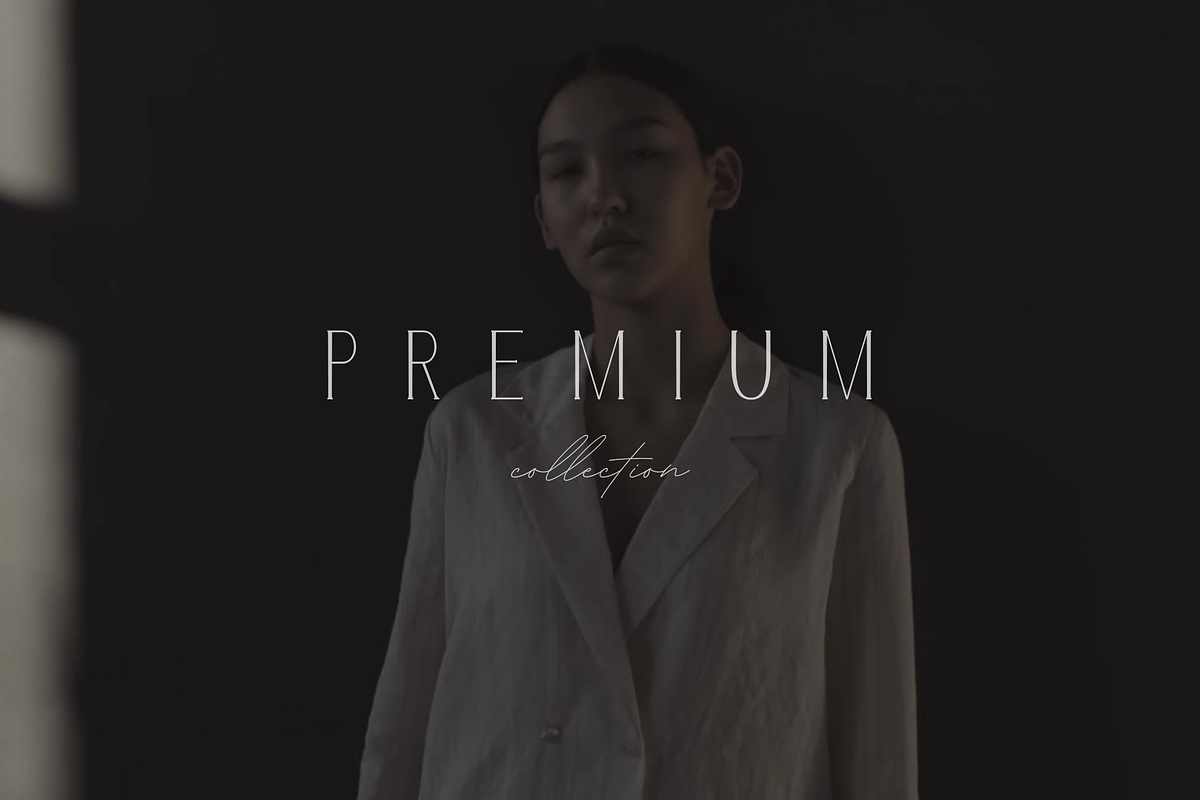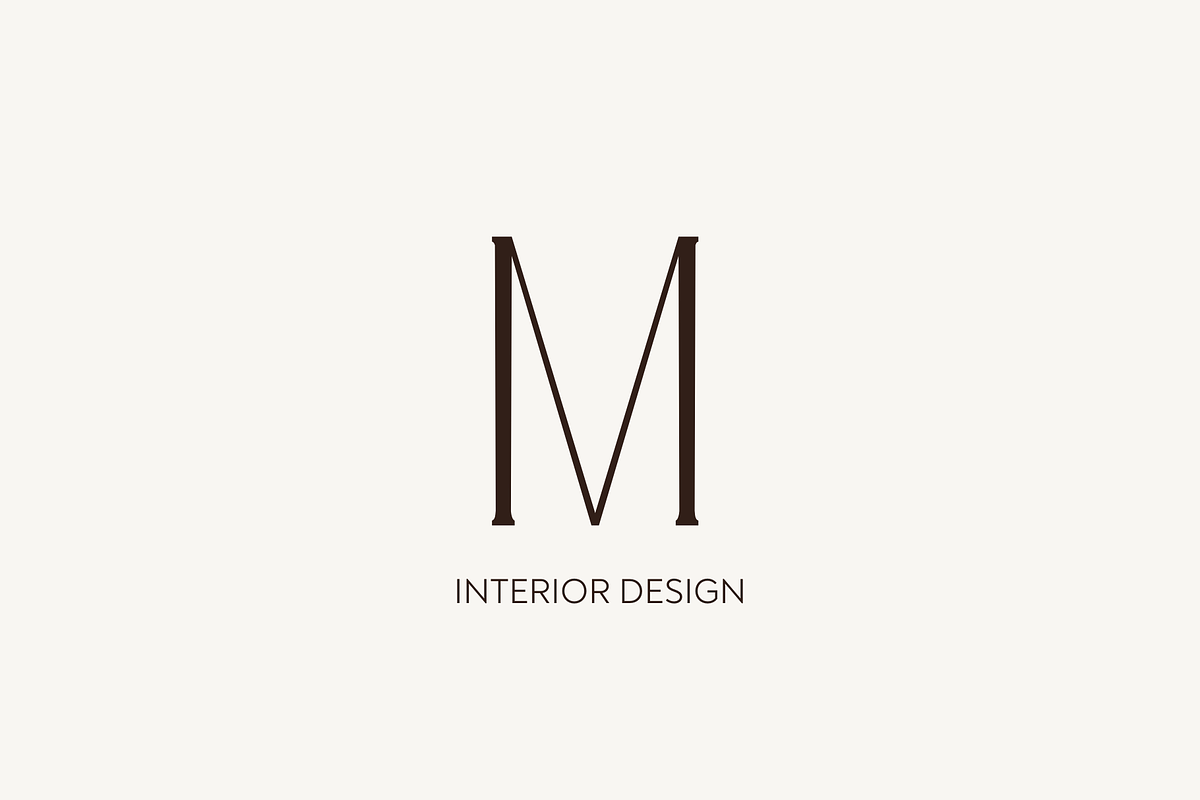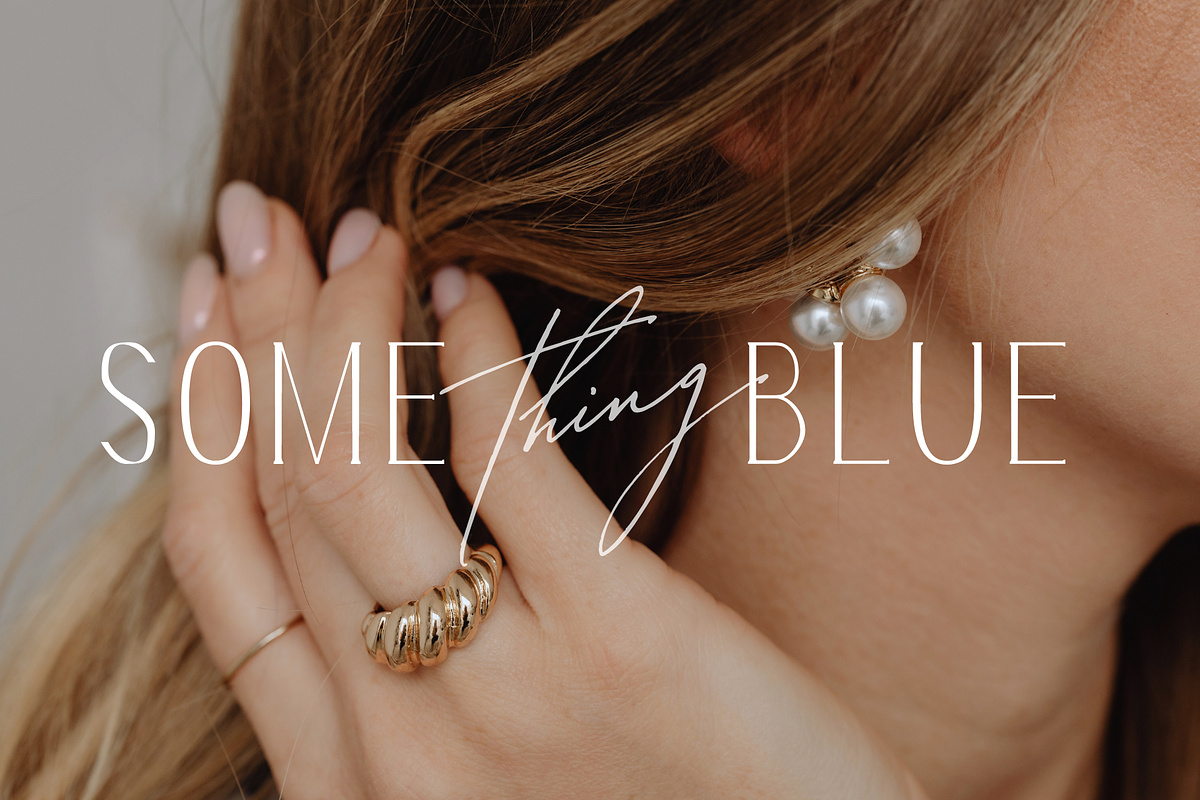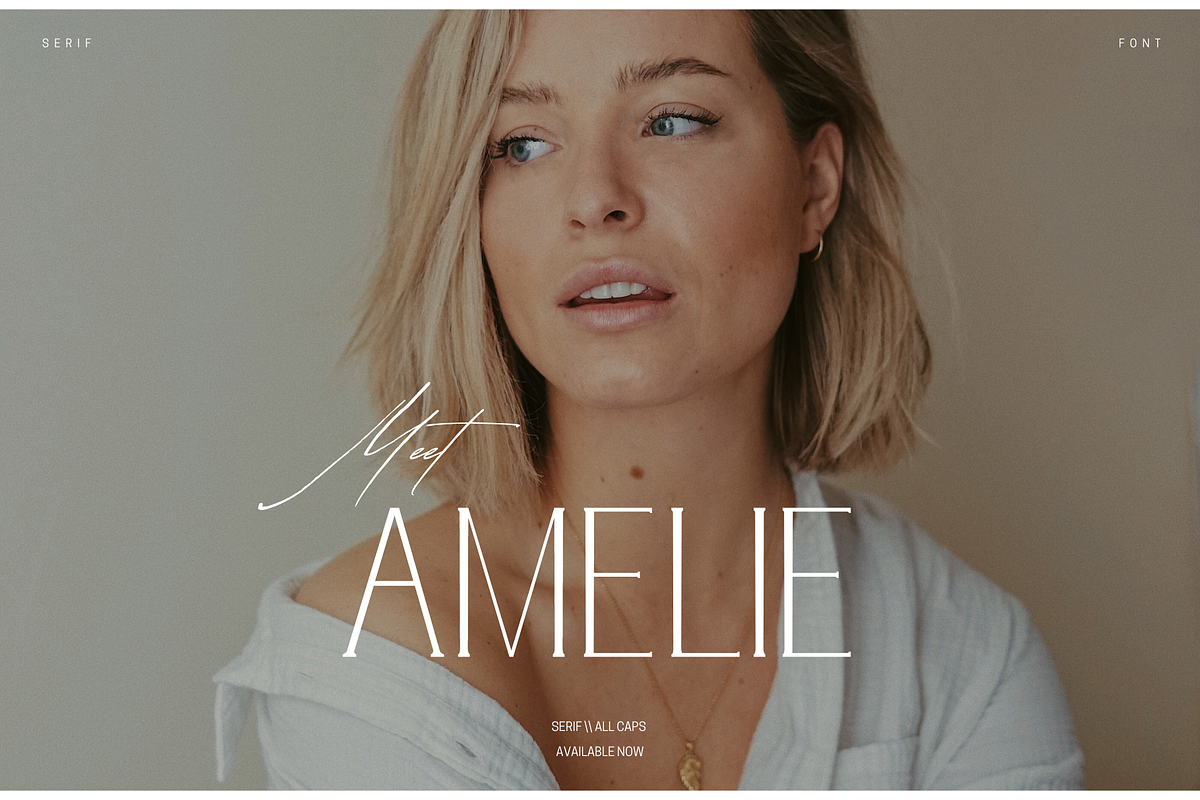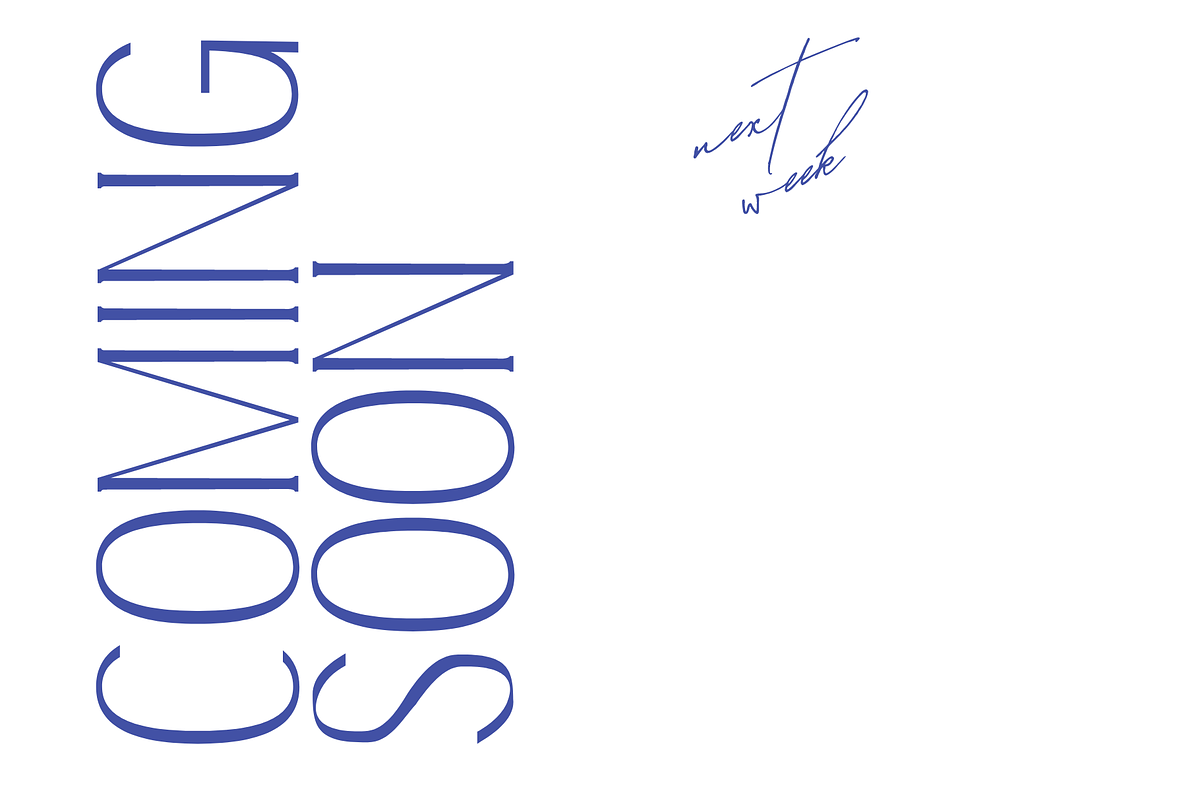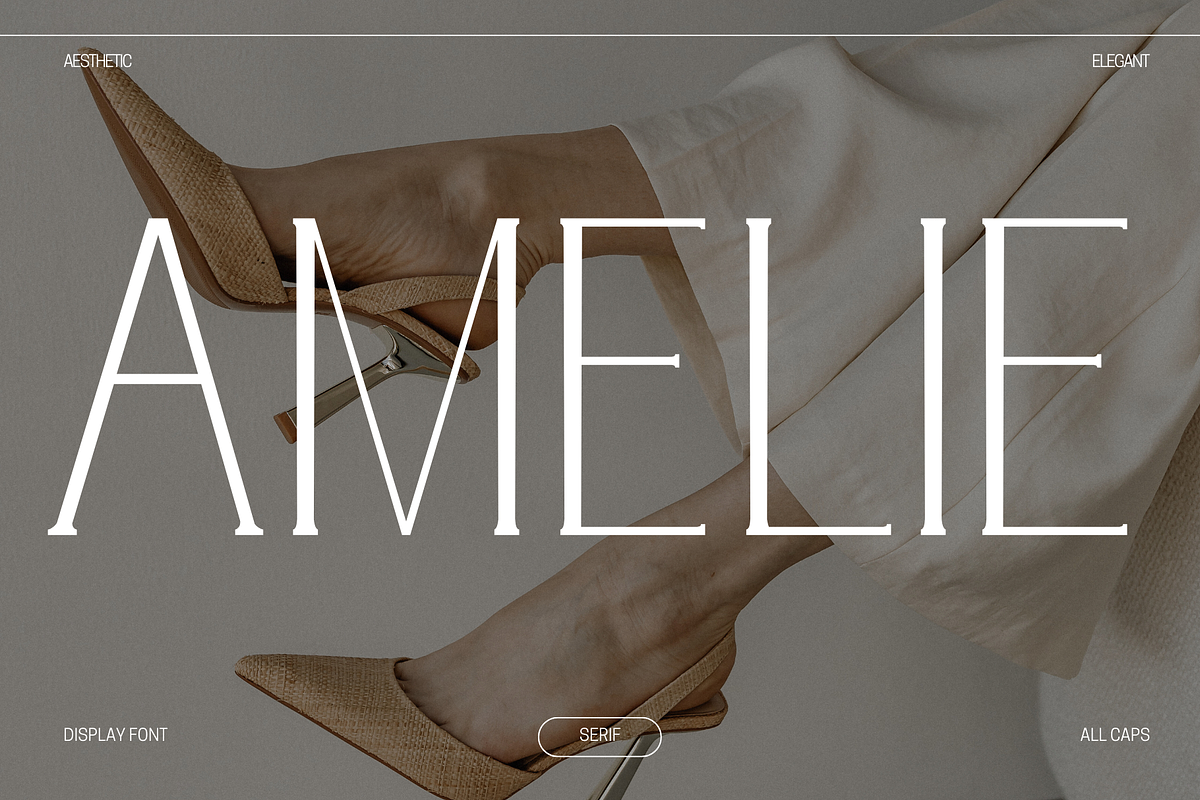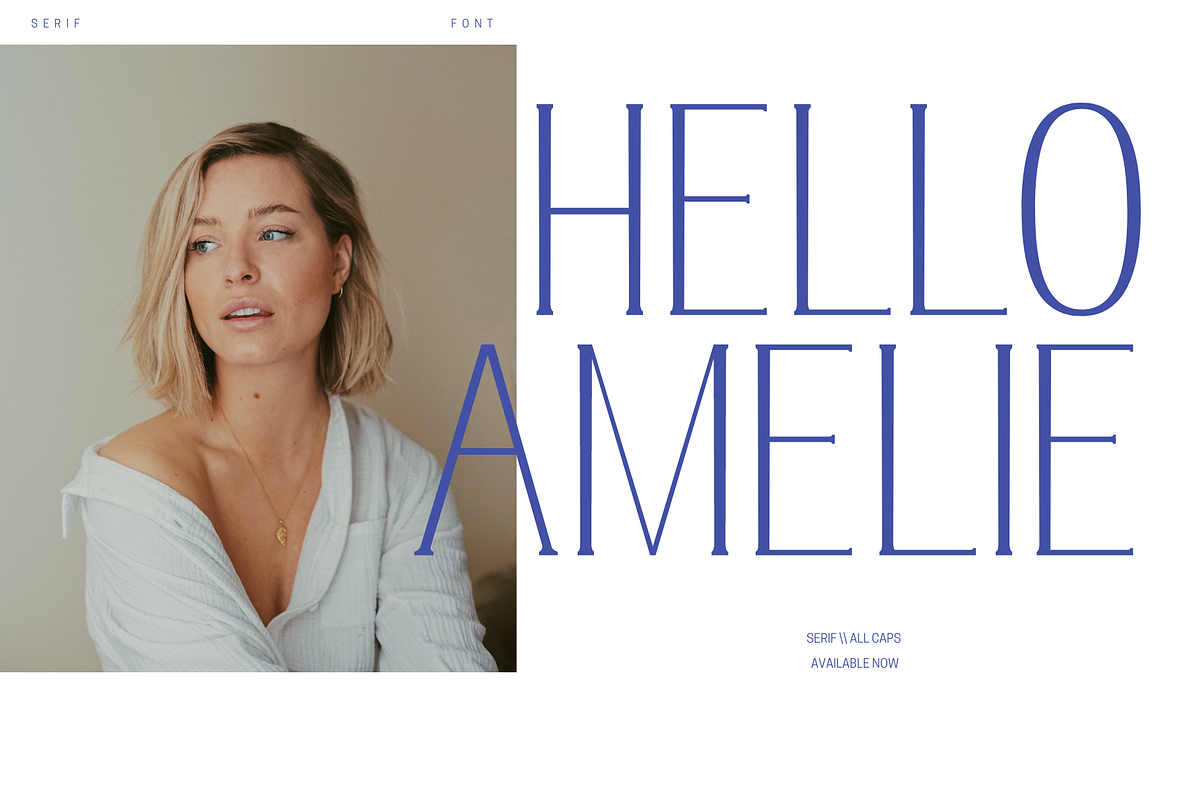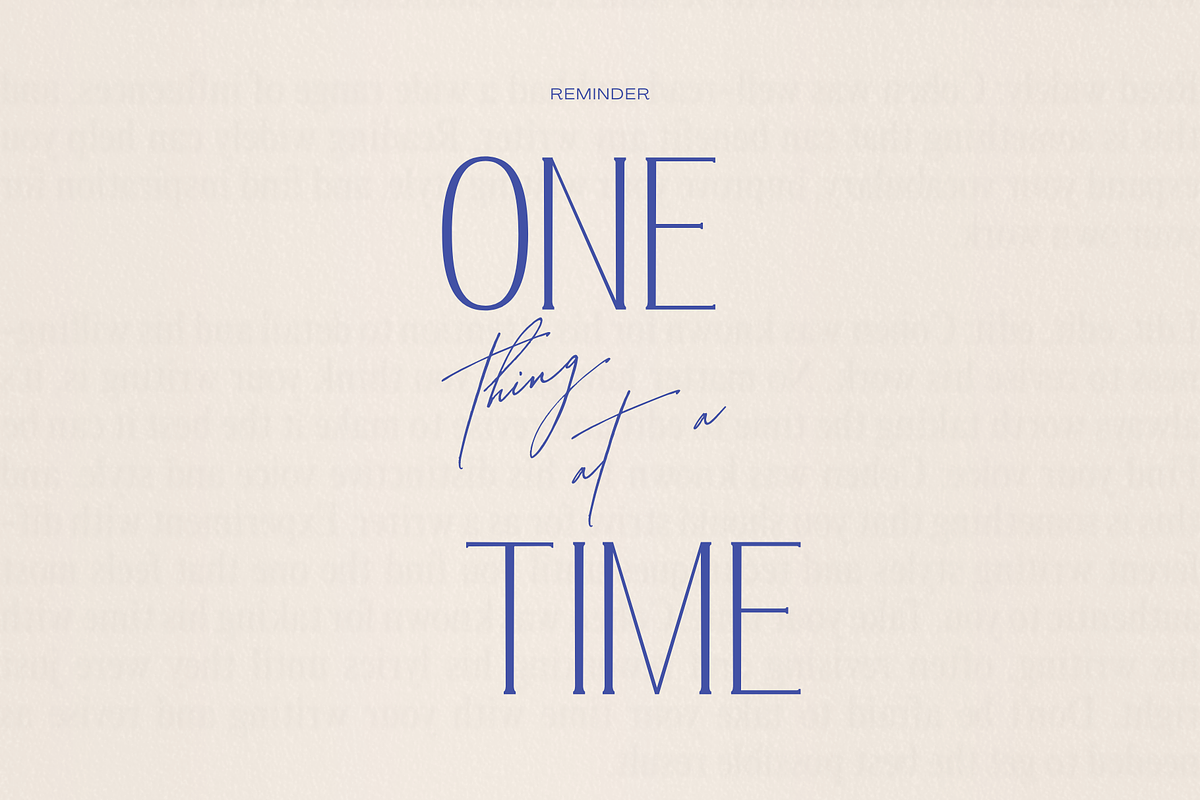
Amelie | Display Font
Amelie Regular is an all-caps display font perfect for your elevated wordmark logo designs.
Upper case/capital letters & limited punctuation (period, comma, hyphen, apostrophe, quote)